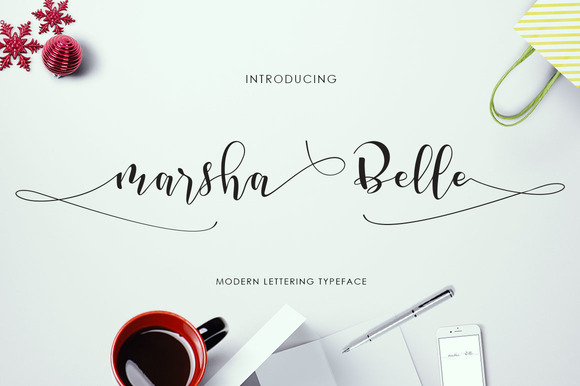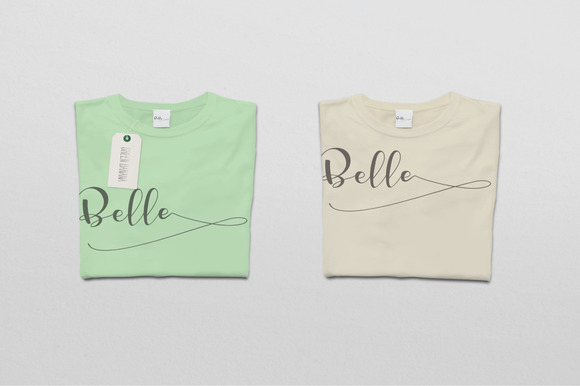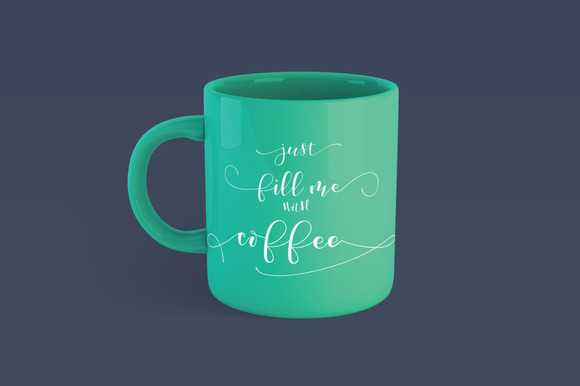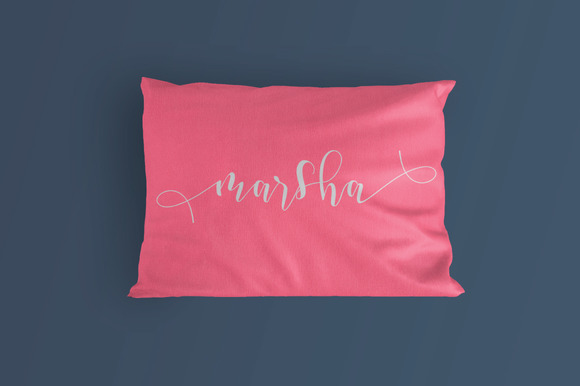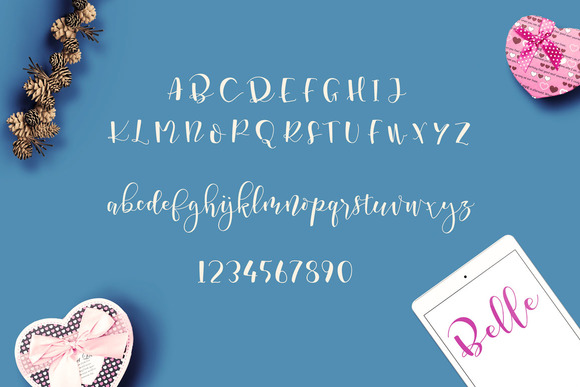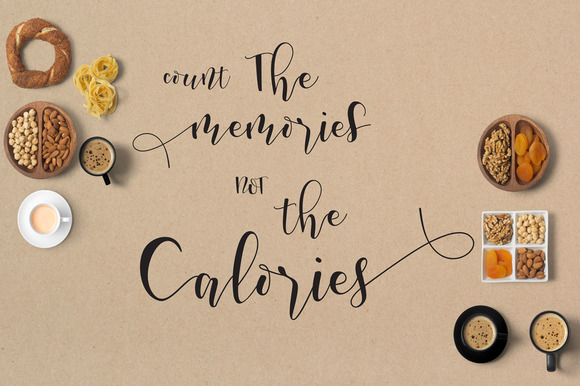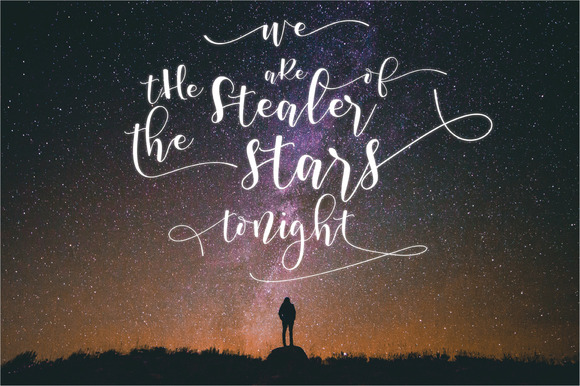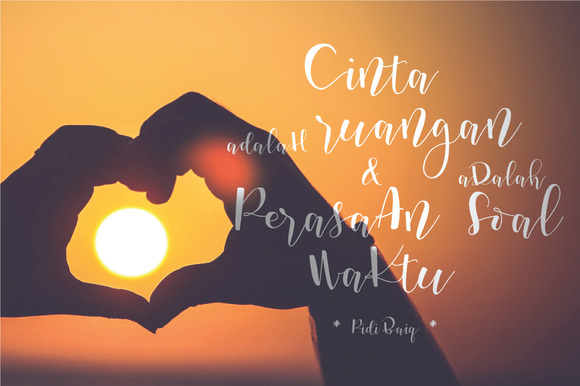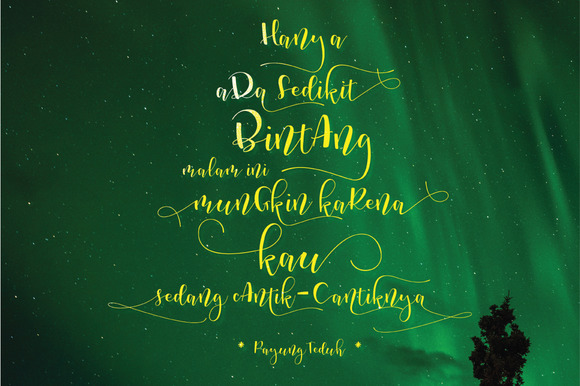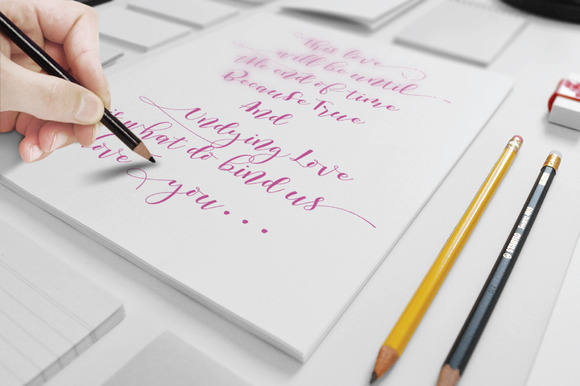
Marsha Belle Script Font
About Marsha Belle Script Font
Marsha Belle is a modern lettering typeface that comes with a dancing up and down baseline. This beautiful font works properly and perfectly for logos, wedding invitation cards, stationary, packaging, clothing, flyers, apparels, magazines, brochures, headings, signatures, labels, news, posters, badges, etc. This beauty font was PUA encoded.